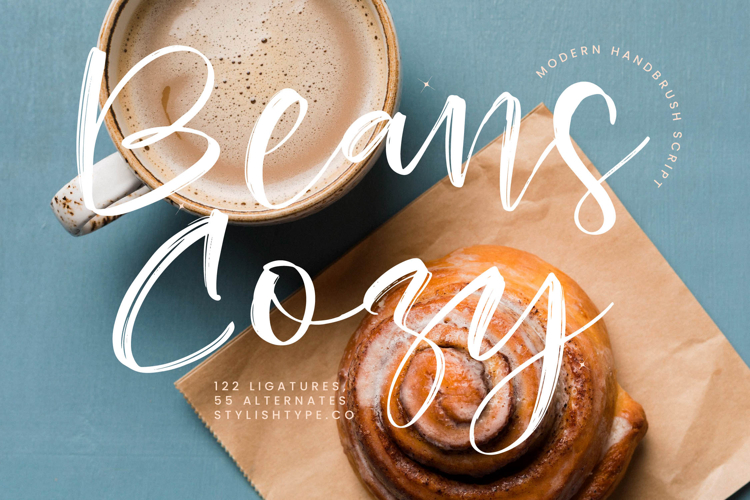
Beans Cozy - Modern Handbrush Script
Discover the warmth and authenticity of Font Beans Cozy - Modern Handbrush Script Script, a truly captivating handbrush script designed to infuse your projects with contemporary elegance. Its distinctive, organic strokes and fluid connectivity evoke a sense of approachable luxury, perfect for brands seeking a , handcrafted touch. This font exudes a cozy yet refined charm, making every word feel genuinely expressive and inviting.
Crafted with meticulous attention to detail, Font Beans Cozy - Modern Handbrush Script Script boasts an impressive array of 122 ligatures and 55 alternates, providing unparalleled customization options to elevate your typography. These rich OpenType features allow for truly unique compositions, ensuring your designs stand out with a natural, human touch. The dynamic high-contrast brushwork ensures readability and impact, whether used for headlines or intricate design elements.